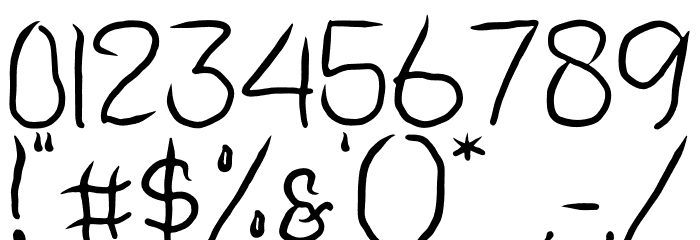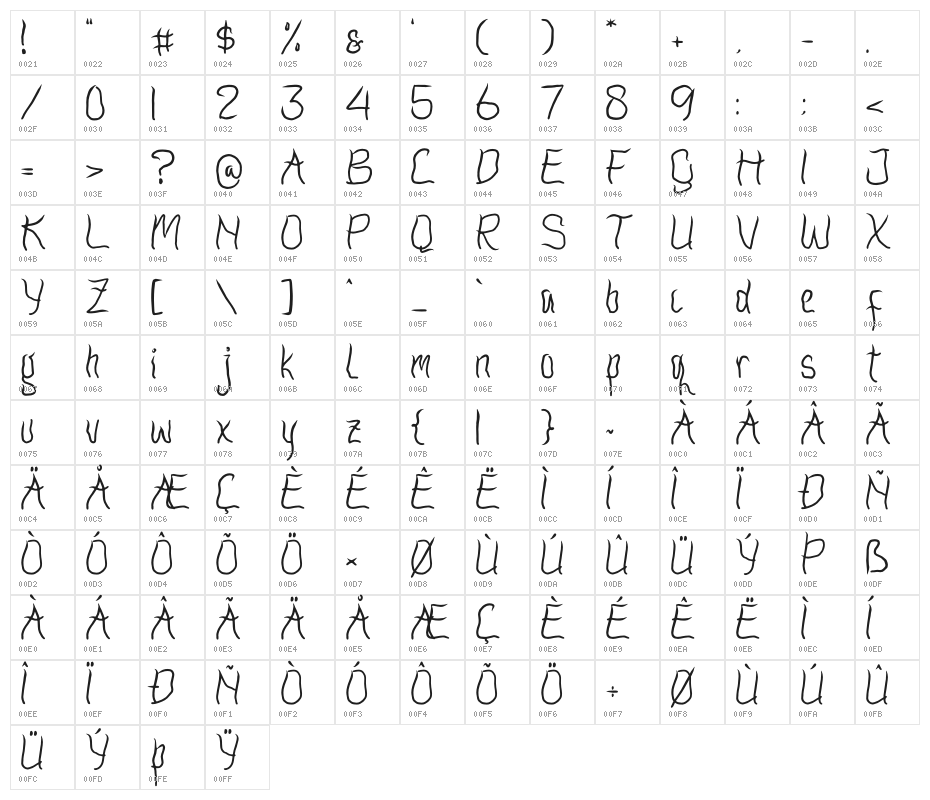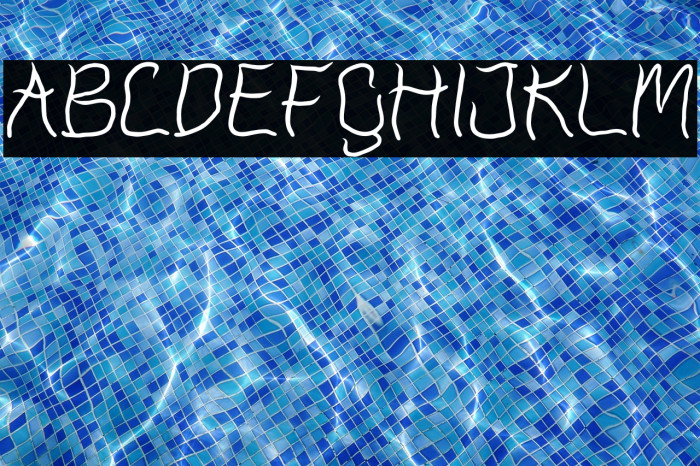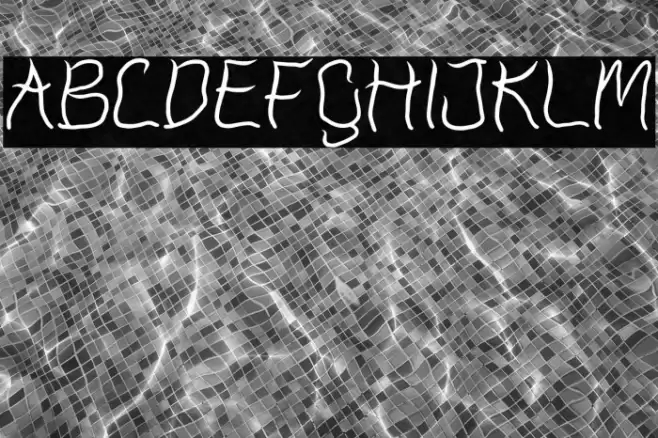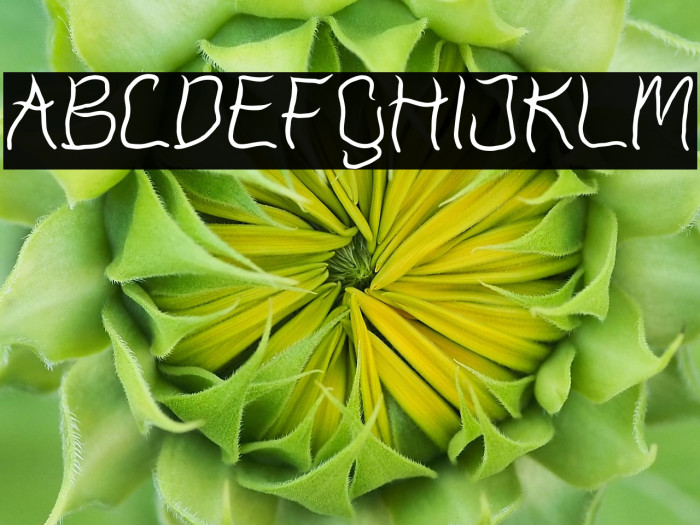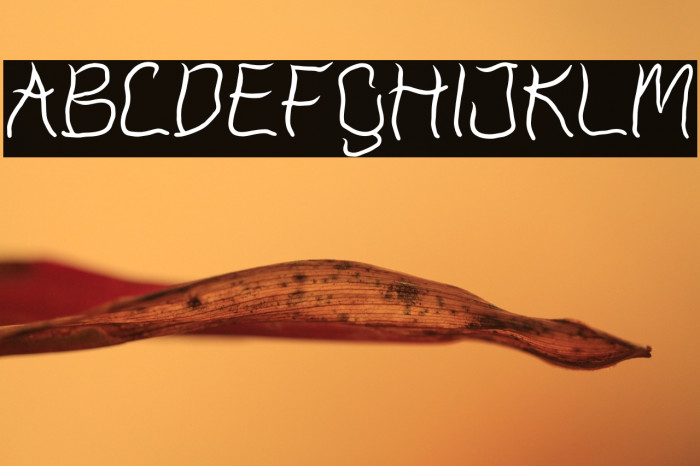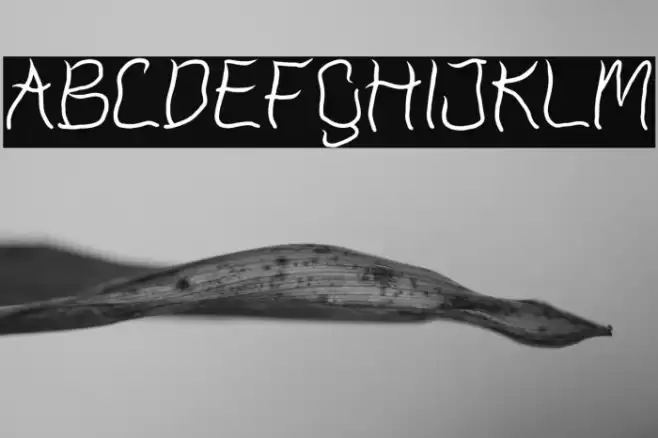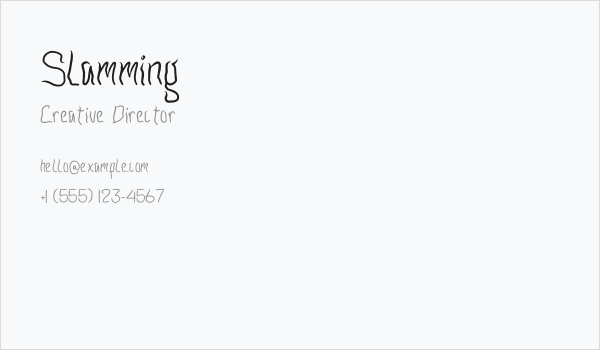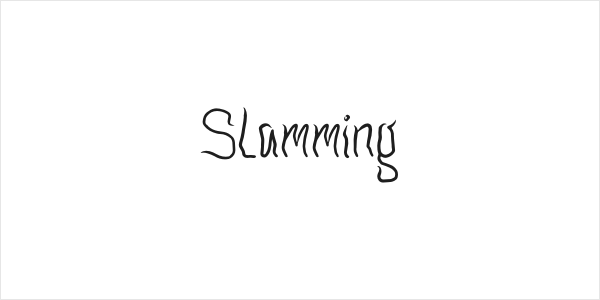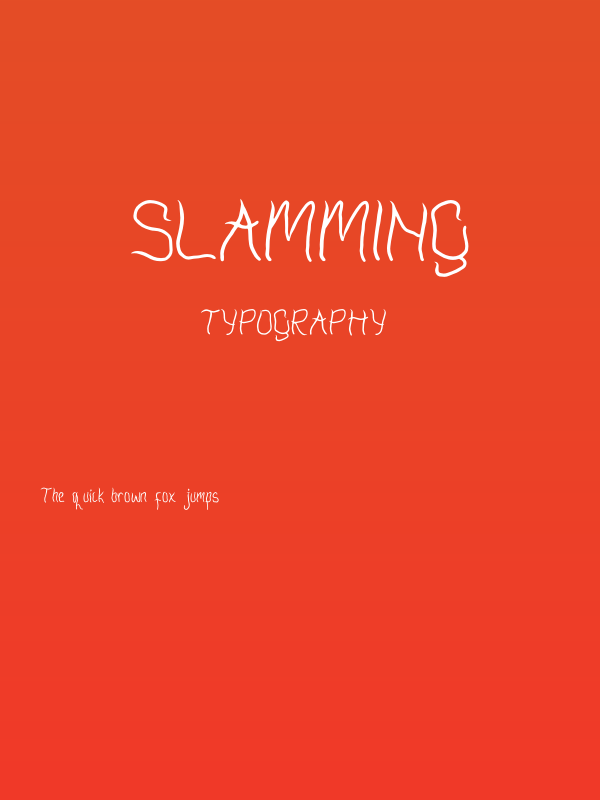
Slamming Font
Slamming Description
This font features a unique, hand-drawn style with an organic and slightly chaotic appearance. The letters are characterized by uneven strokes and varying thickness, giving it a dynamic and energetic feel. The uppercase and lowercase letters maintain a consistent style, with elongated forms and playful curves. Numbers and special characters follow the same aesthetic, adding to the font's cohesive look. The overall design is reminiscent of graffiti or street art, making it stand out with its bold and artistic flair.
| Use Case | Logos, Posters, Artistic projects |
| Proposed Projects | Ideal for creative projects such as album covers, posters, street art designs, and branding for edgy or artistic ventures. |